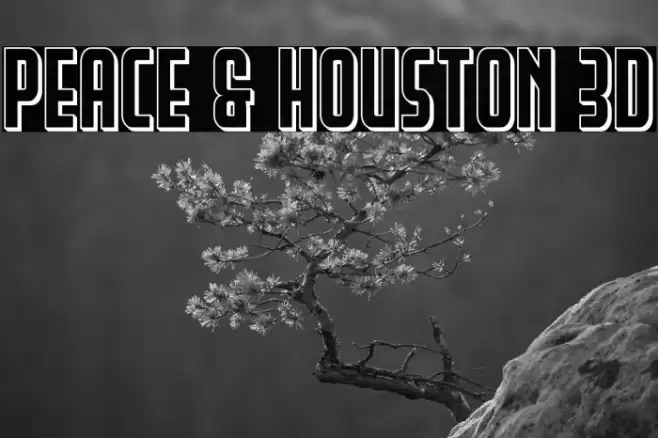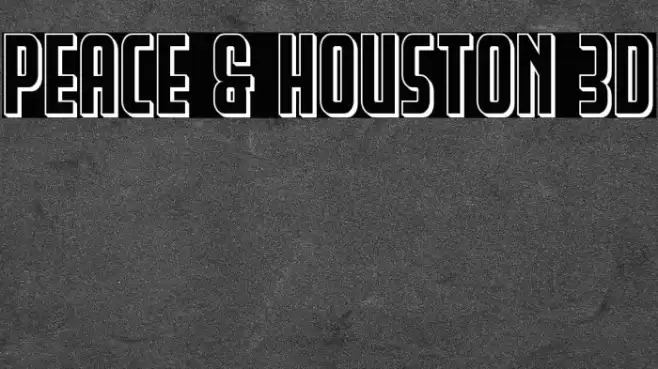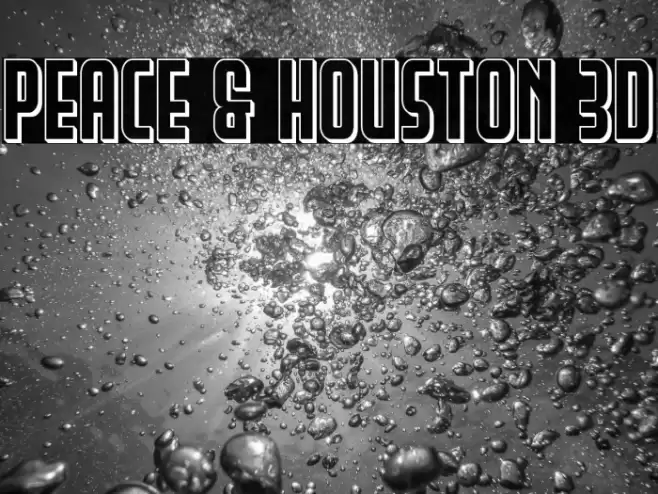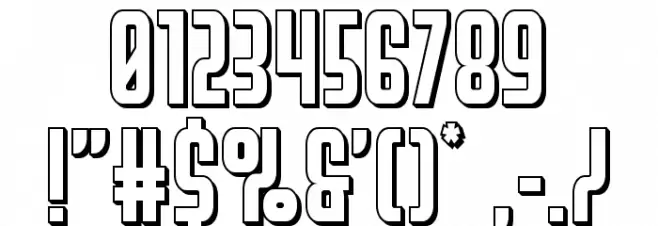
Peace & Houston 3D Font
Peace & Houston 3D Description
This font features a bold, geometric design with a three-dimensional effect that gives it a striking and modern appearance. The characters are outlined, creating a hollow look that adds depth and visual interest. The uppercase letters are uniform in height, and the numbers and special characters maintain the same stylistic approach. The font's clean lines and structured form make it highly legible, while the 3D effect adds a unique flair. It's suitable for projects that require a bold statement or a futuristic touch, such as posters, headlines, or branding materials.
A bold, geometric font with a 3D outline effect, perfect for modern and striking designs from Uncategorized fonts.
- Proposed Projects: Ideal for posters, headlines, branding, and any design requiring a bold, futuristic look.